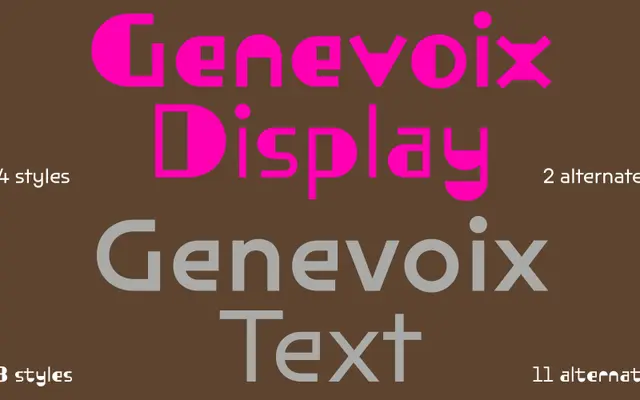
Genevoix specimen from The Designers Foundry
A geometric sans in twelve styles with Bauhaus references, split across Text and Display subfamilies, with stencil and extended cuts throughout the display range.
Designed by Roman Seban and built on simple geometric forms, Genevoix draws on Bauhaus aesthetics while introducing alternate letterforms to introduce rhythm and warmth. The Text subfamily covers Light, Regular, Italic and Bold for body use, while the Display subfamily extends into Regular, Bold, Extended Regular and Extended Bold, each also available as a stencil cut. Variable Font support runs across three axes in the display styles. The broad Latin coverage spans over eighty languages.
Built on simple geometric forms with explicit reference to Bauhaus aesthetics, placing it squarely in the geometric sans tradition. The stencil and extended display variants add a mechanical, constructed quality consistent with that lineage.